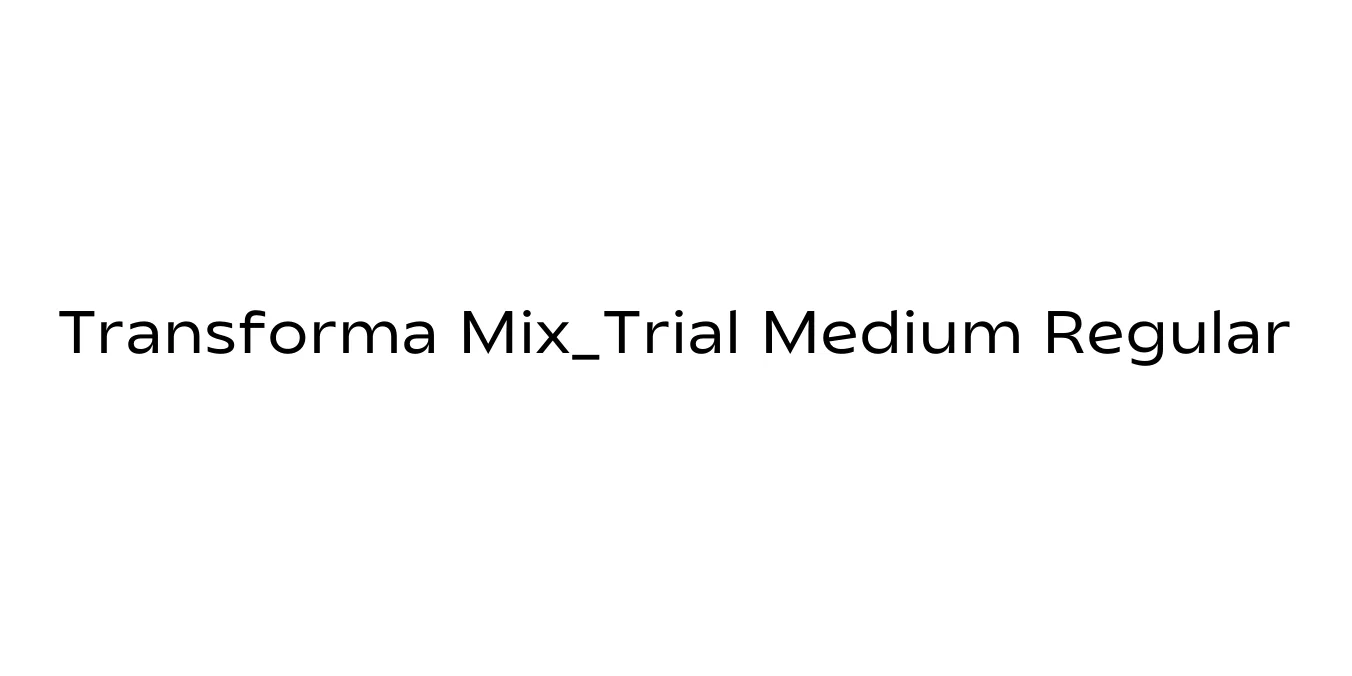
Transforma Mix_Trial Medium Regular
Designed by Cast Iron Design
| Category | Sans Serif / Hybrid |
| Designer | Cast Iron Design |
Transforma Mix is a sophisticated typographic system developed by Cast Iron Design. It is part of a larger superfamily that experiments with the blending of different font styles—serif, sans, and script—to create a unique "Mix" aesthetic. This Medium Regular Trial version provides a glimpse into the font's versatile nature, characterized by its balanced proportions and modern, geometric undertones that maintain high legibility across various media formats.
The concept behind Transforma Mix was to provide designers with a tool that defies traditional classification, offering a fresh perspective on corporate and creative identity. Its structure is engineered to be both functional and expressive, making it particularly effective for contemporary branding and high-end editorial work where a distinct visual voice is required.
Transforma Mix_Trial Medium Regular Best Uses
Excellent for creating distinctive logos and corporate identity systems.
Perfect for headlines and pull-quotes in modern magazine layouts.
Adds a professional and modern touch to hero sections and digital interfaces.
Ideal for social media graphics and promotional advertising materials.